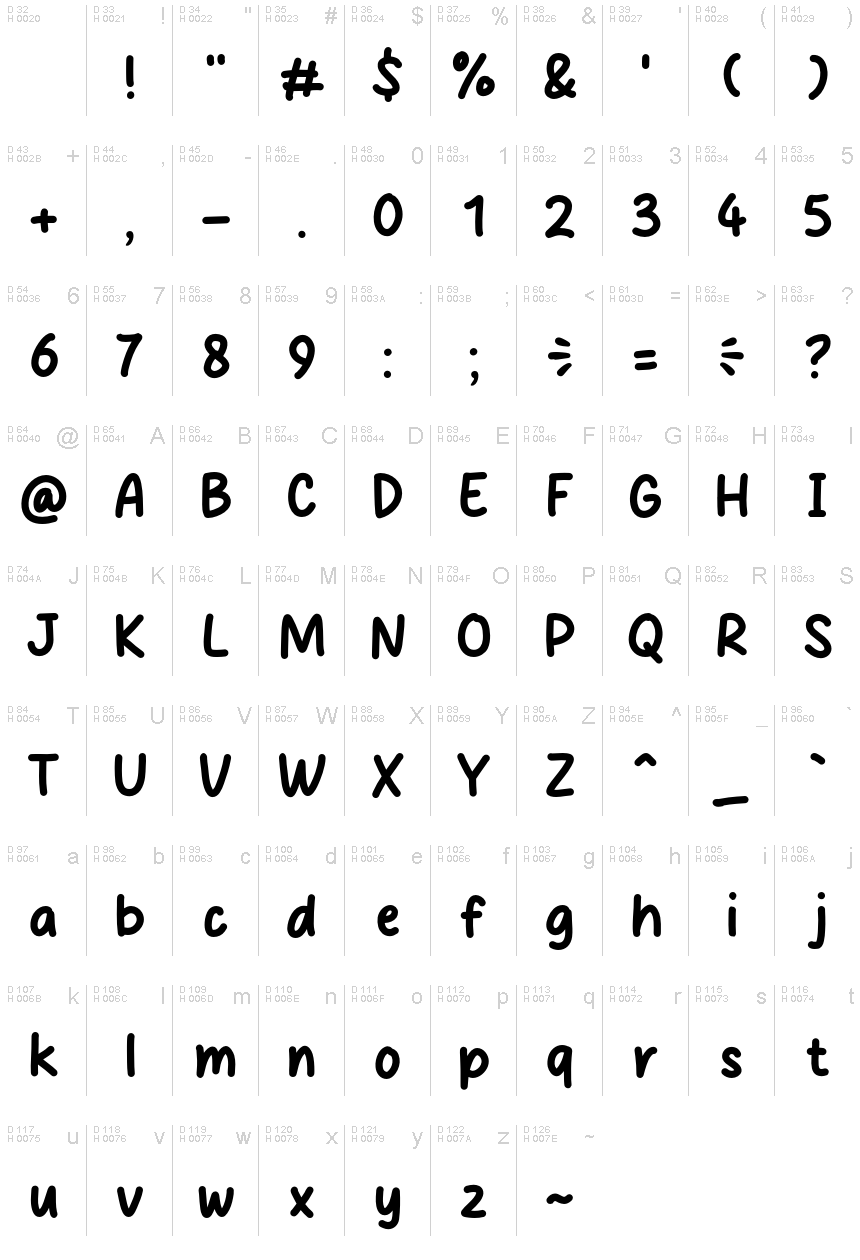
Cheese Matcha
Cheese Matcha font by MJType is a delightful display typeface with a playful, cartoon style. Its rounded lettering and whimsical design make it perfect for projects that require a touch of fun and creativity. The bold, dynamic shapes are eye-catching and memorable, ideal for children's books, posters, or any design that needs to convey joy and cheerfulness.